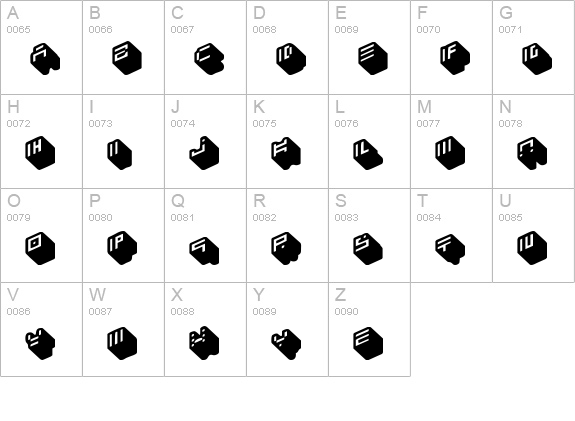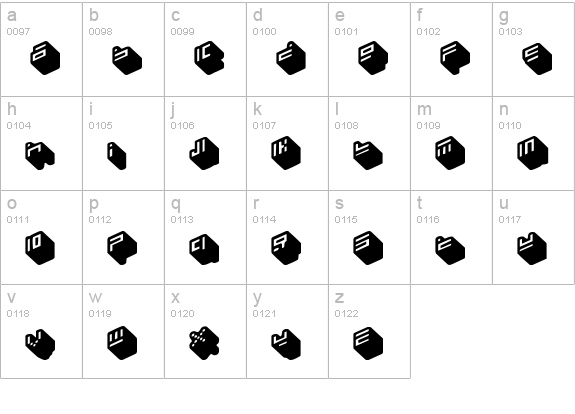
nippon blocks Font Details
Introducing Nippon Blocks Font, a unique and modern typeface that is sure to make a statement in your design projects. This font features bold and clean lines, reminiscent of traditional Japanese block printing techniques. Perfect for adding a touch of sophistication and flair to your branding, packaging, posters, and more. What's even better is that Nippon Blocks Font is completely free to download at FontsMarket.com. Yes, you heard it right - this stunning font is available at no cost, allowing you to elevate your designs without breaking the bank. Don't miss out on this opportunity to enhance your creative projects with the sleek and stylish Nippon Blocks Font. Download it today and let your designs stand out from the rest.